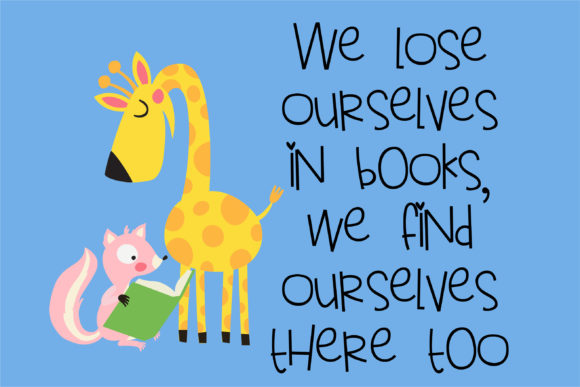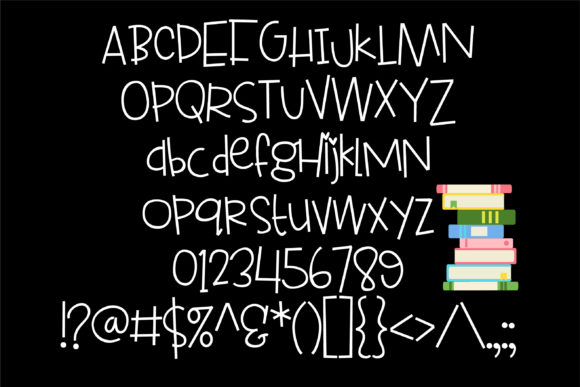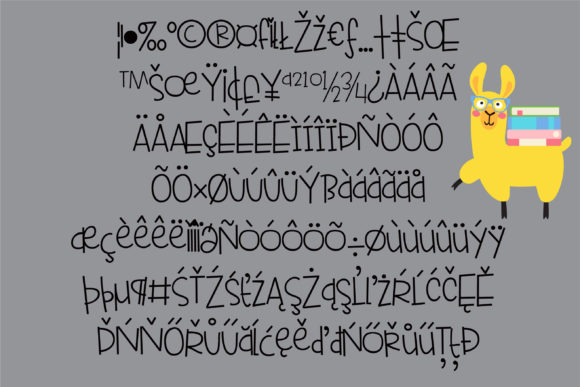
Introduction to Cuff and Link Font
Cuff and Link is a youthful font that has a very whimsical and happy feel to it.
Get inspired by its playful character .
Why Choose Cuff and Link Font?